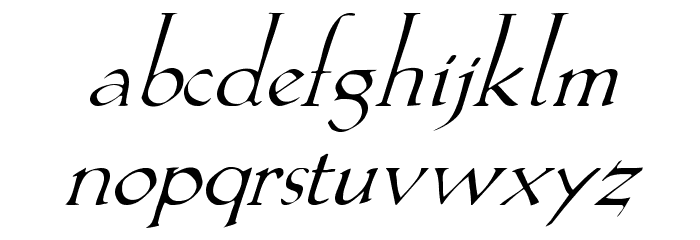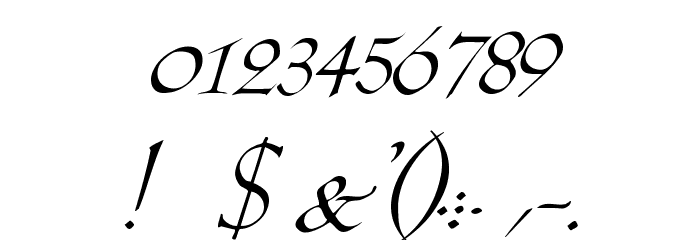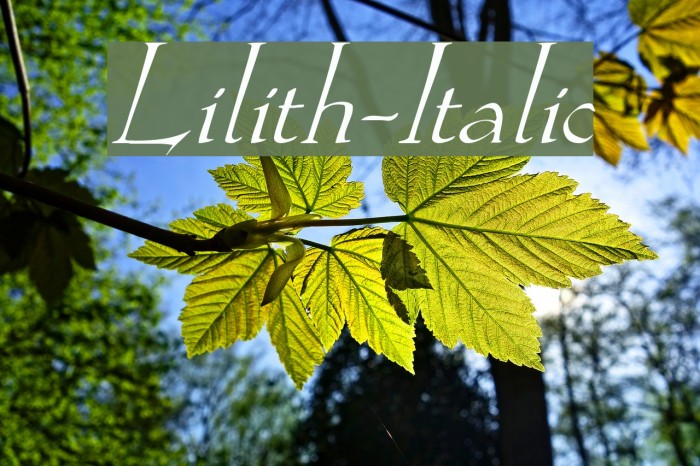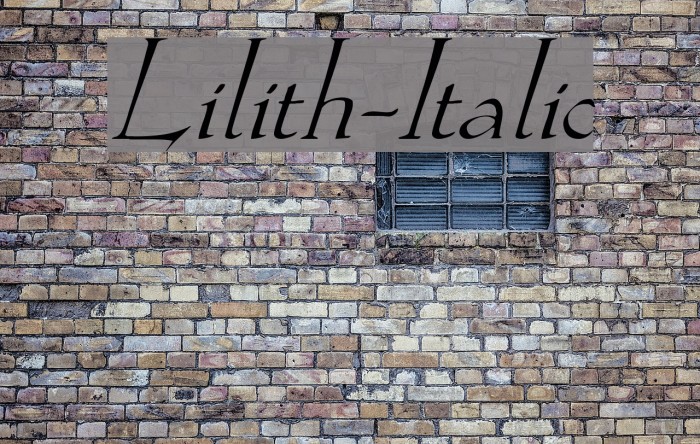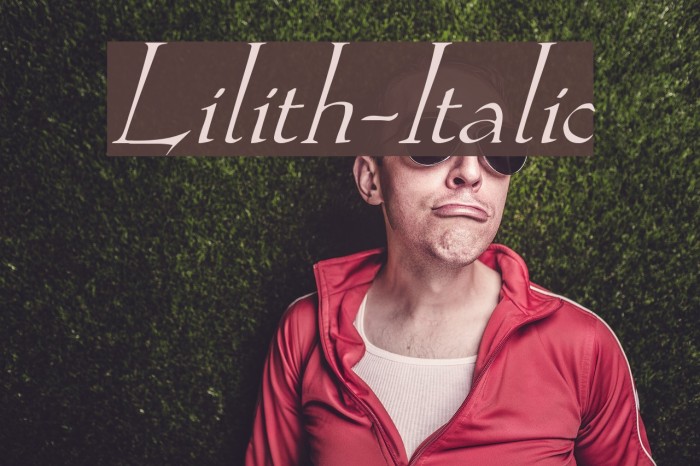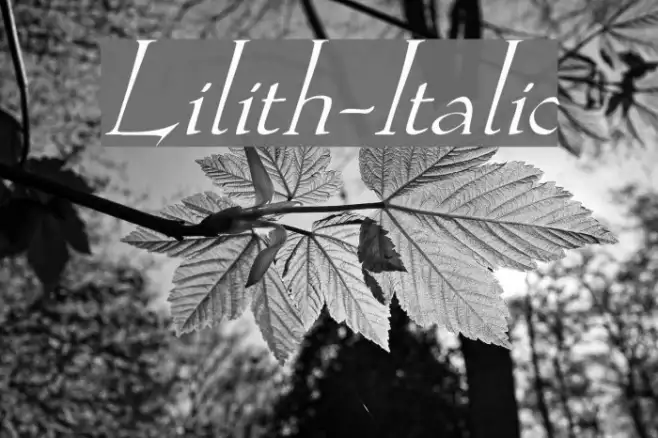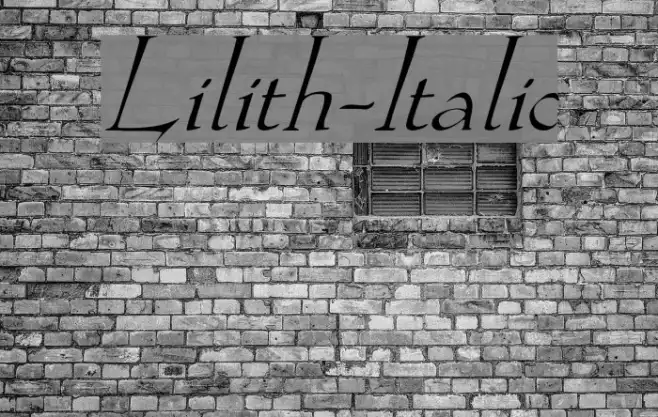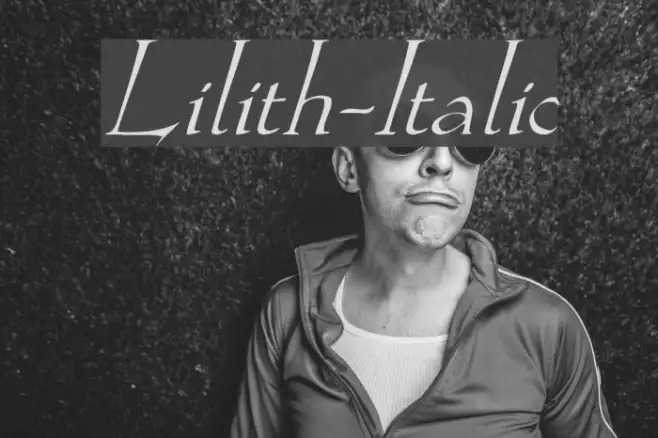
Lilith-Italic Font
This elegant and sophisticated font features a distinctive italic style, characterized by its graceful, flowing lines and sharp, angular serifs. The uppercase letters exhibit a refined, elongated form, while the lowercase letters maintain a harmonious balance with their slightly condensed shapes. The numerals are designed with a classic touch, complementing the overall aesthetic. Special characters are crafted with attention to detail, enhancing the font's versatility. The font's high contrast in stroke thickness adds to its dramatic and stylish appearance, making it suitable for a variety of design applications.
An elegant italic font with sharp serifs and high contrast, perfect for sophisticated designs.
- Proposed Projects: Ideal for luxury branding, wedding invitations, editorial design, and high-end product packaging.
- Overall Style: Classic
- Use Case: Logos, Headlines, Invitations